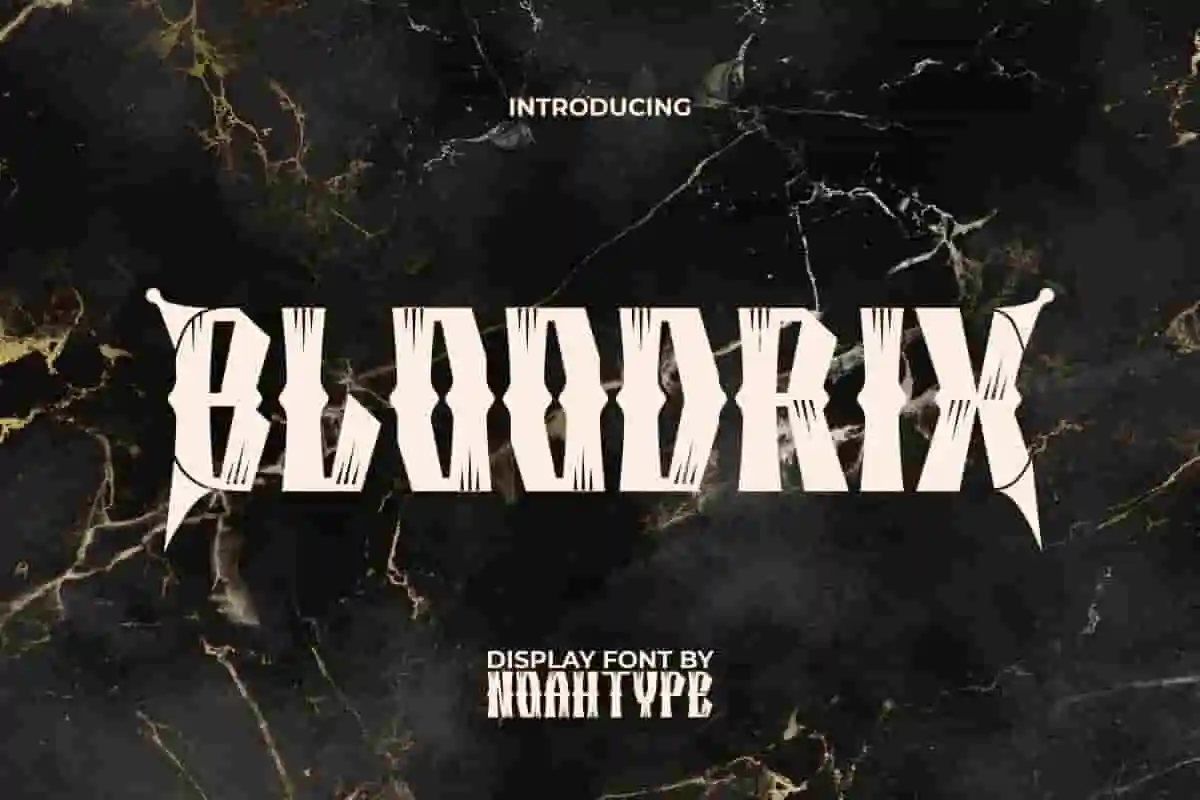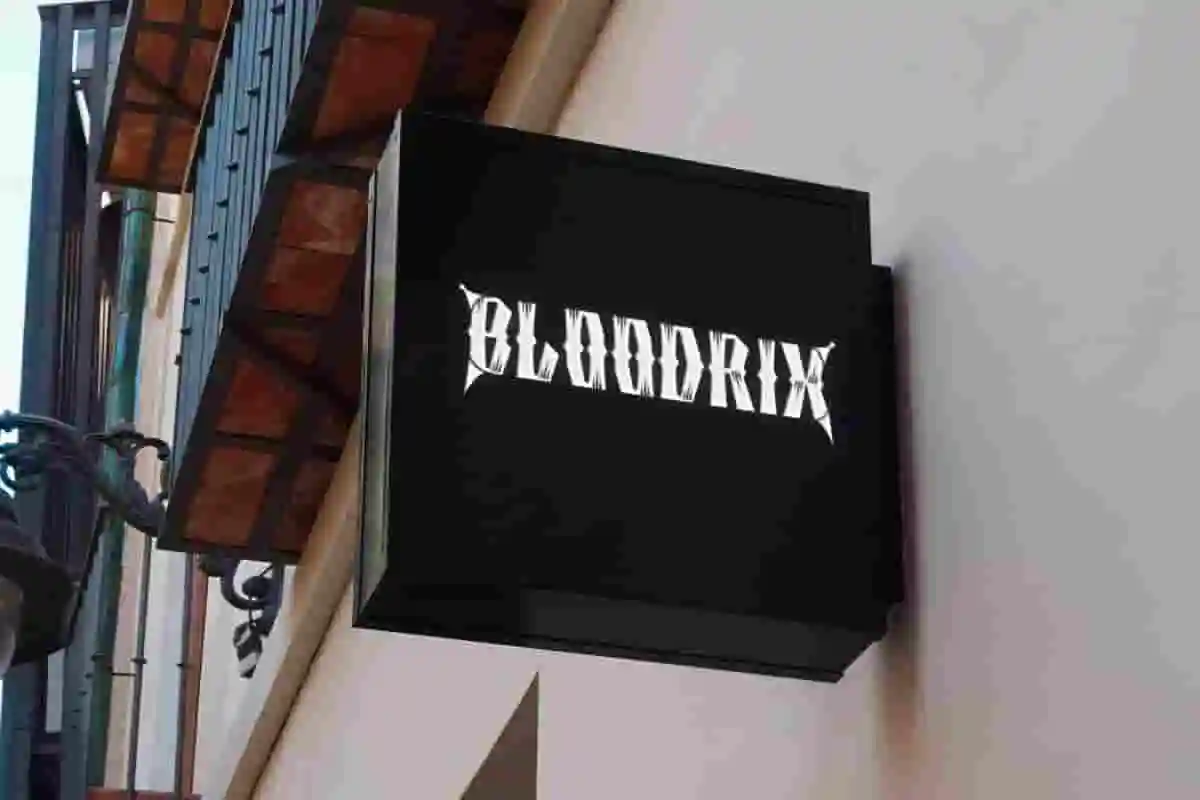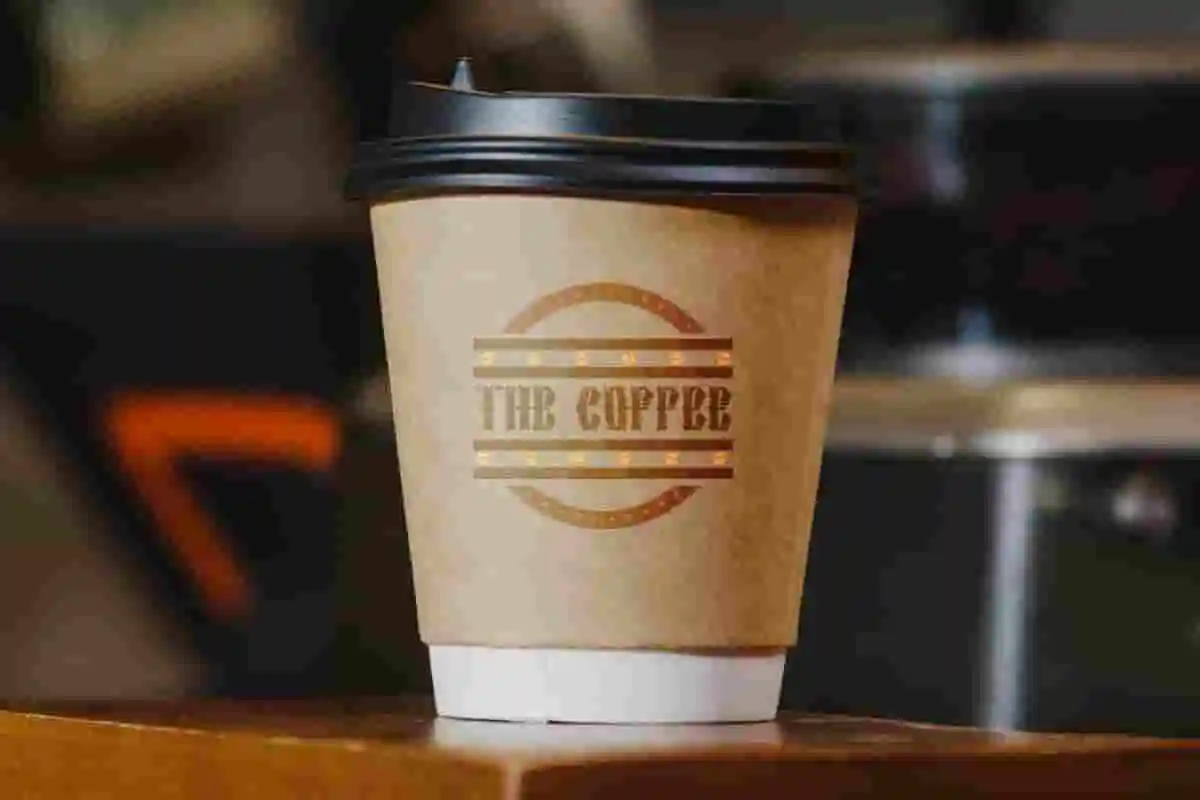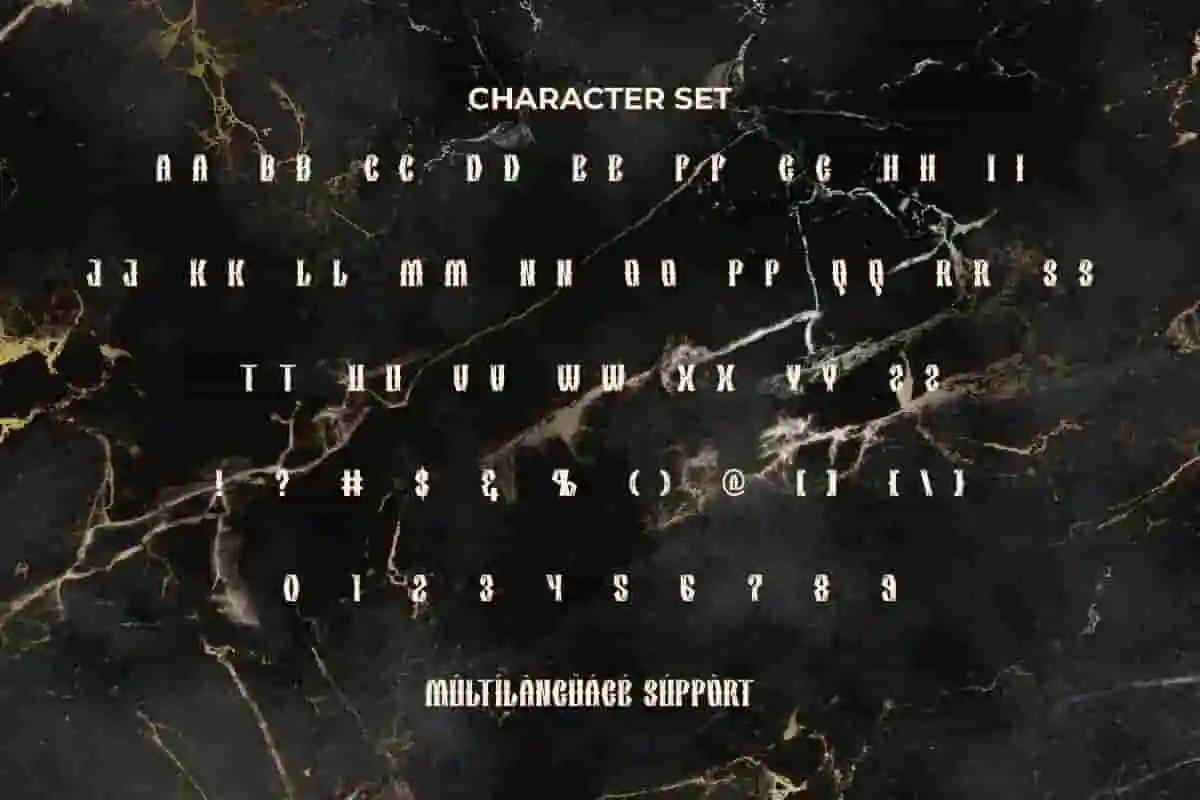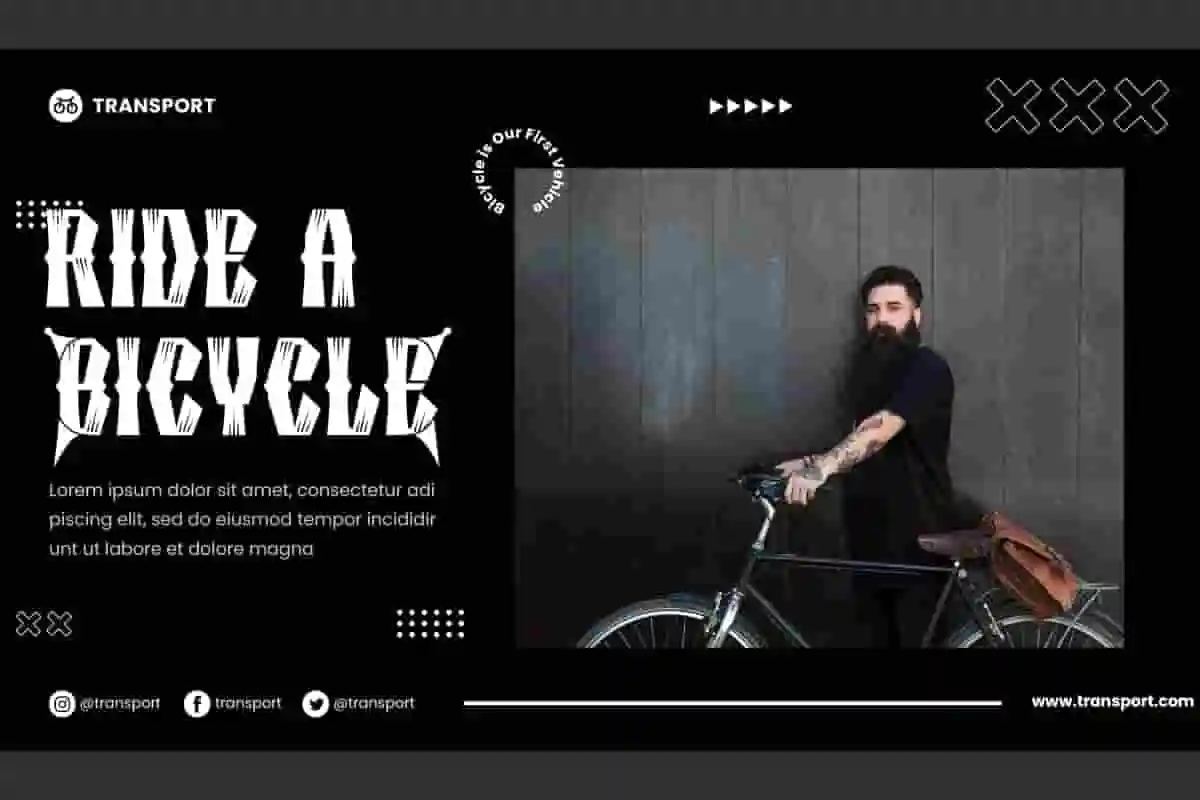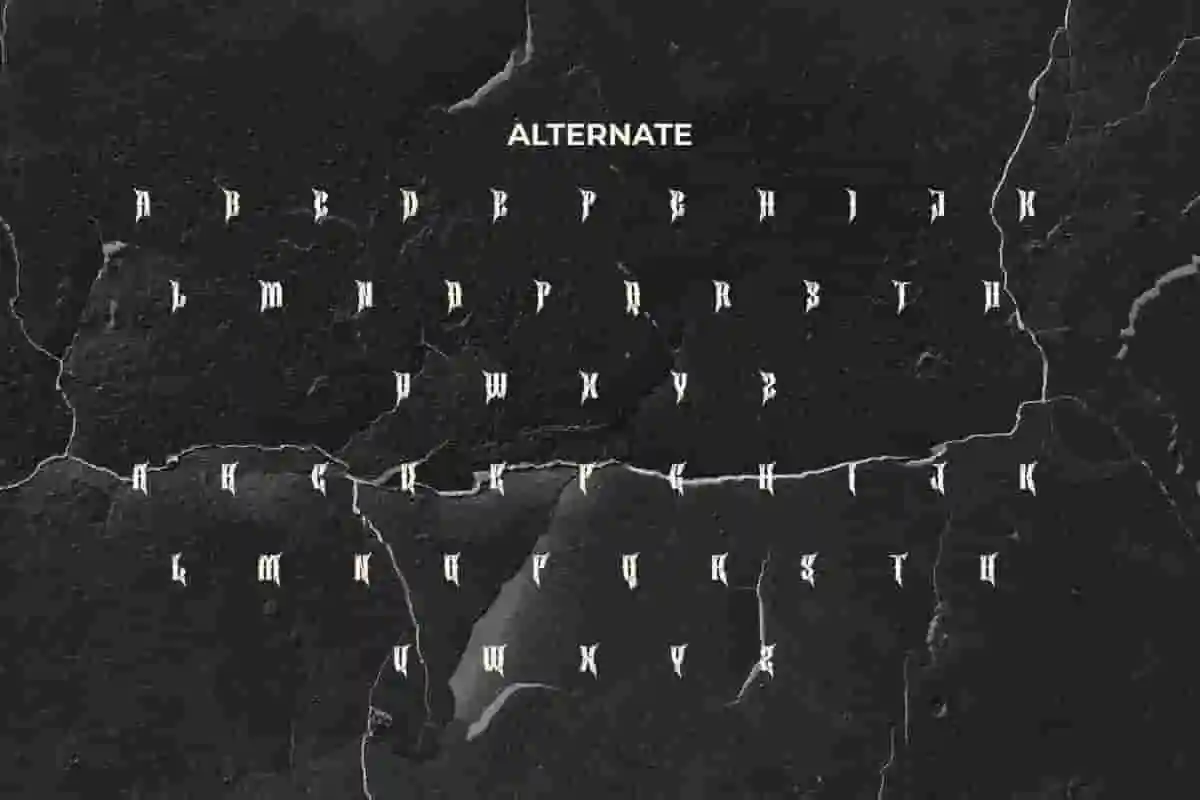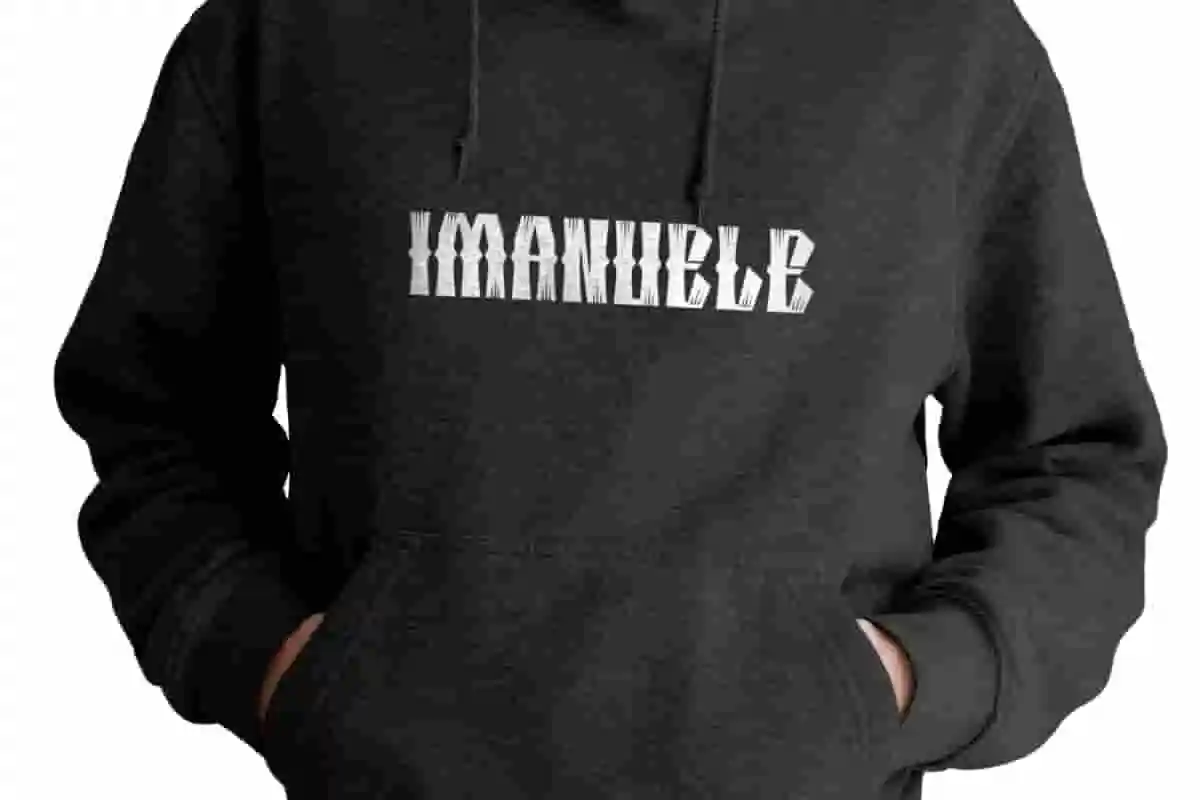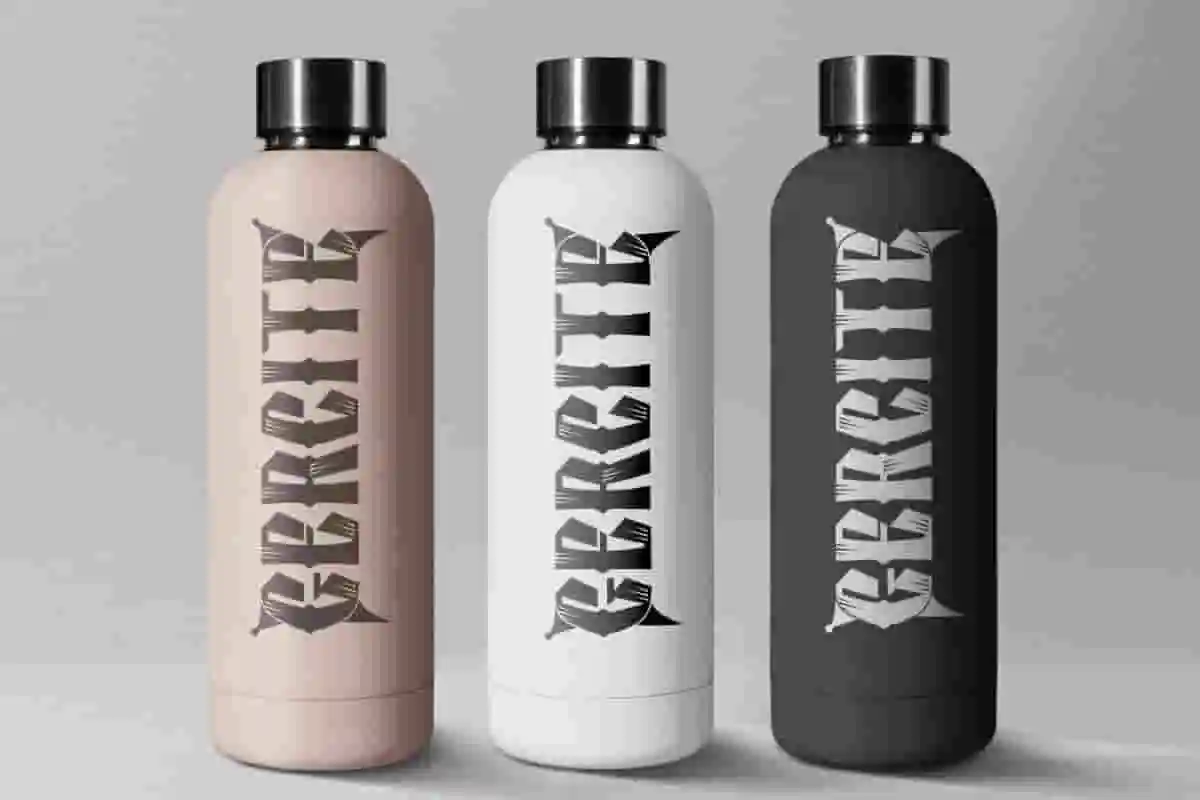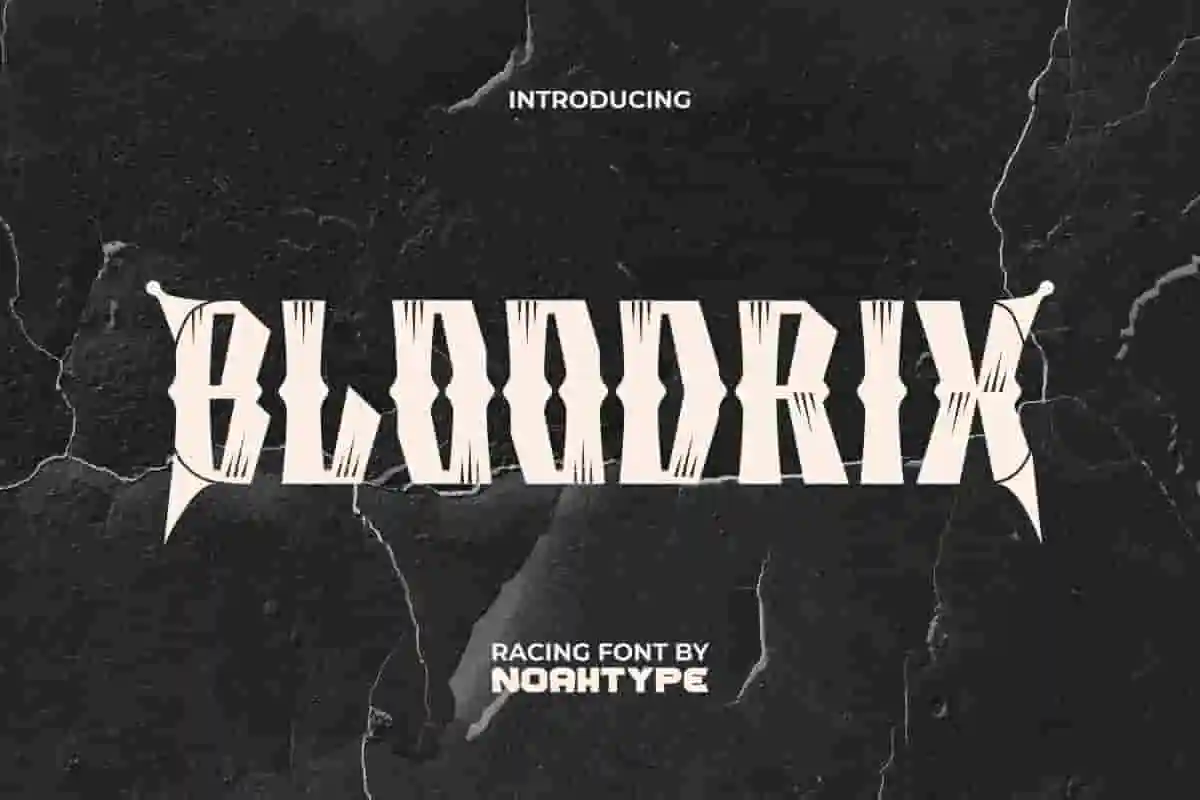
Bloodrix Font is a unique decorative hardcore and sporty racing display font by NoahType. This font can give a bold and sharp impression, as well as additional graphics in the unique character corners. It will be perfect for any designs, such as brand image, custom design, invitation, label, marketing material, menu, poster, printing, product packaging, quotes, signage, website, and many more!
Bloodrix Font includes full set of ALL CAPS for Uppercase and Lowercase Basic Characters, Numerals, Punctuation, and Symbol. This font have Alternate characters that will give amazing touch and also a perfect choice for many industries, such as accessories, advertising, automotive, barber shop, cafes, fashion, game, movie, music, printing, publishing, etc.